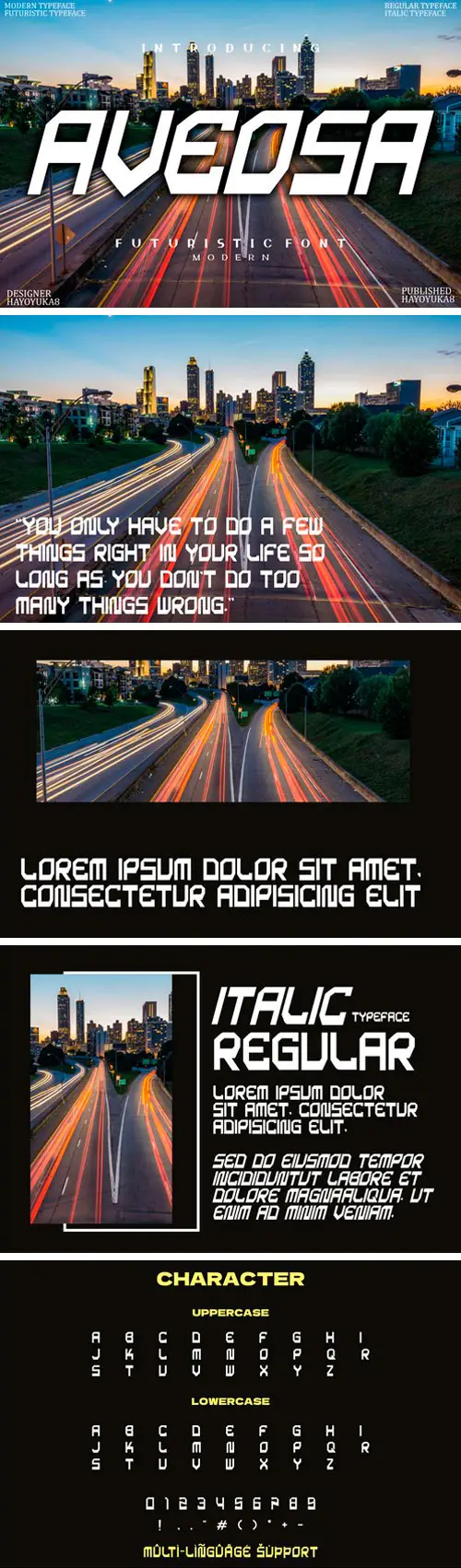
Aveosa Display Font
The Aveosa Display Font is a striking typeface designed to make a bold statement in any project. With its unique character shapes and elegant curves, this font is perfect for branding, logos, and eye-catching headlines.
• Stylish display font with distinctive letterforms
• Available in multiple weights for versatility
• Supports a wide range of languages
Ideal for use in branding, marketing materials, and digital content, the Aveosa Display Font can elevate your design projects with its modern aesthetic.